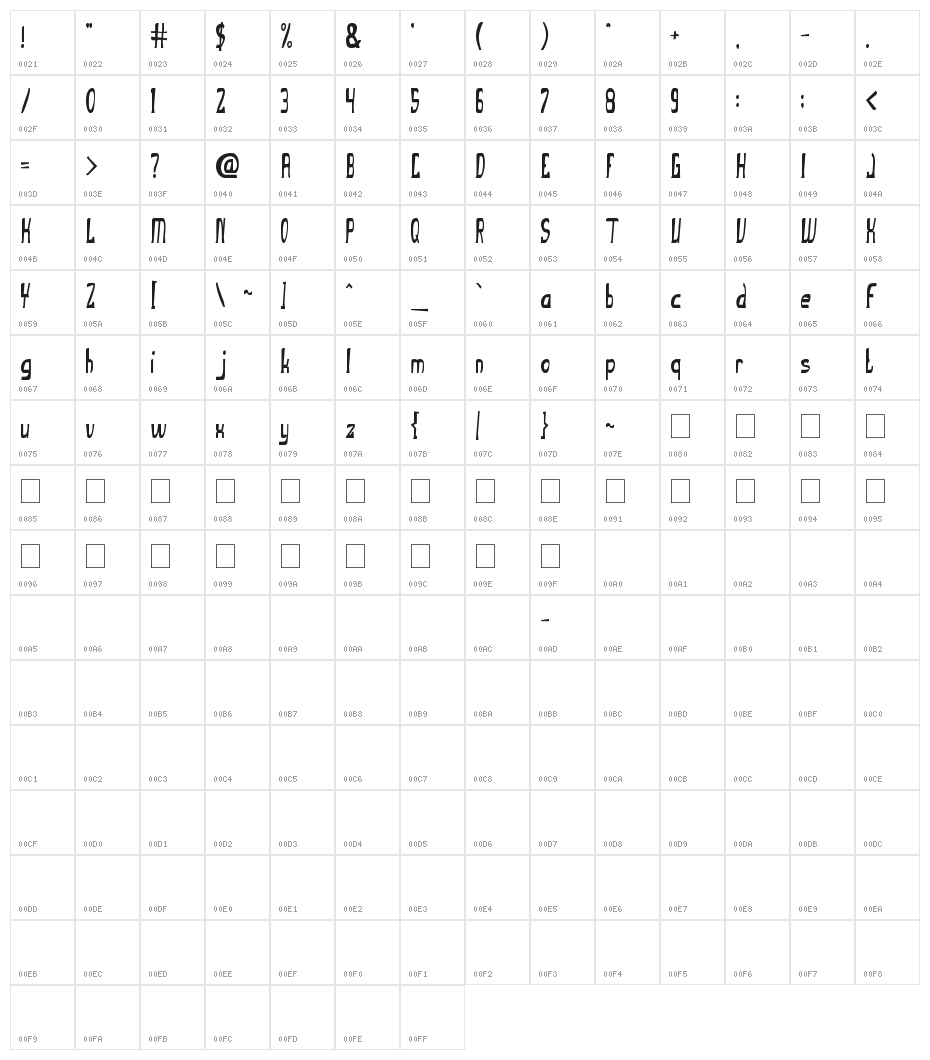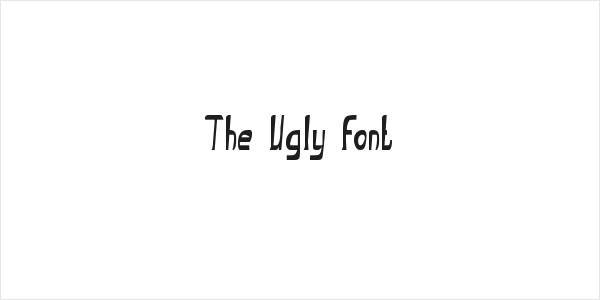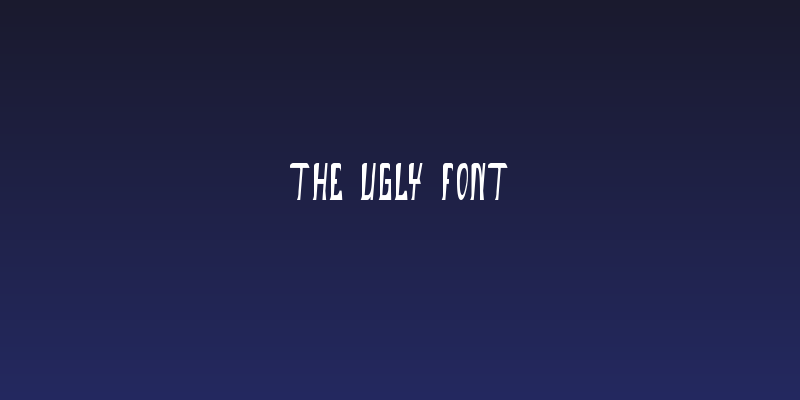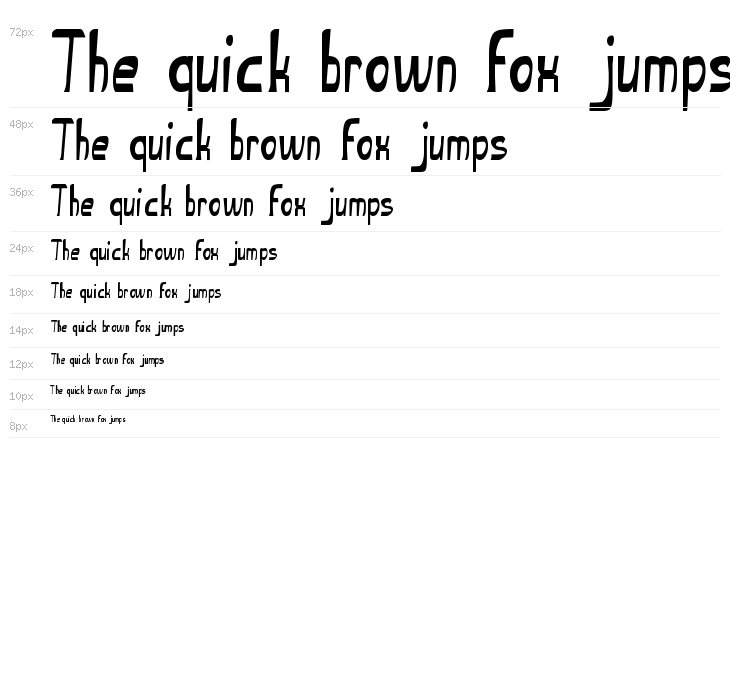
The Ugly font Font
The Ugly font Description
This font features a unique and quirky design with irregular shapes and playful curves. The uppercase letters have a tall and narrow appearance, while the lowercase letters exhibit a more rounded and compact form. The numbers maintain the whimsical style, adding a touch of eccentricity. Special characters are creatively designed, enhancing the font's overall playful and unconventional aesthetic. Its distinct style makes it stand out, offering a creative twist to any text.
| Overall Style | Playful and Quirky |
| Proposed Projects | Ideal for creative projects such as children's books, playful branding, artistic posters, and unique invitations. |